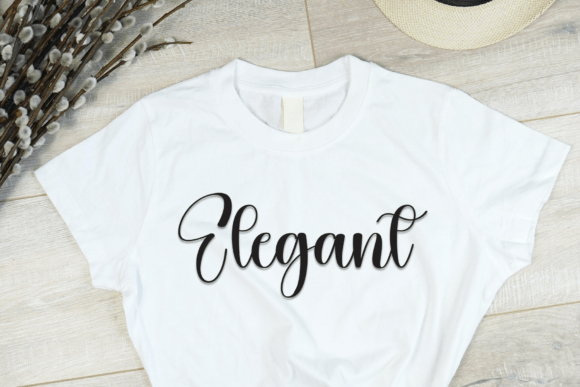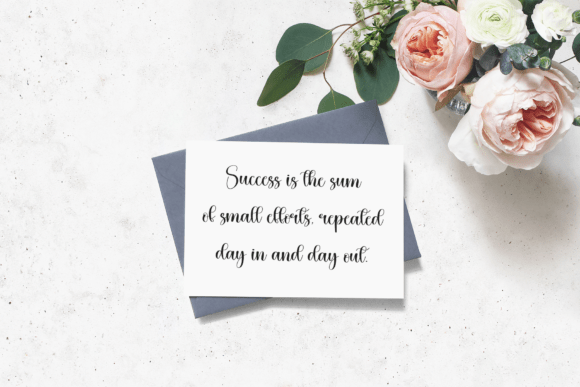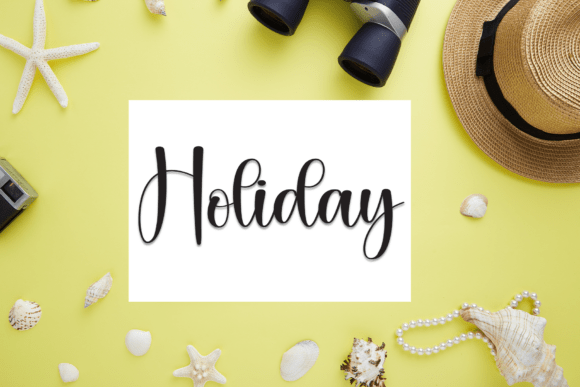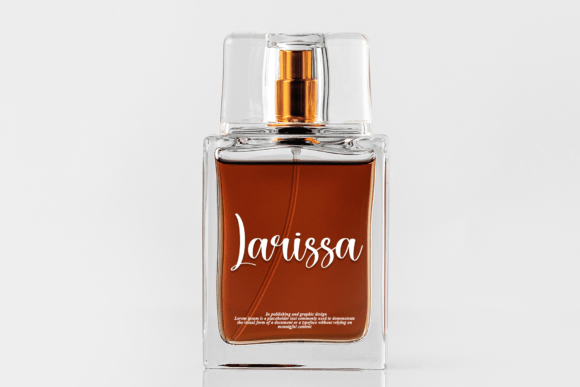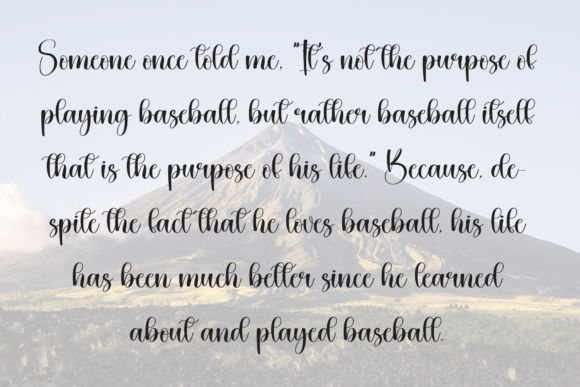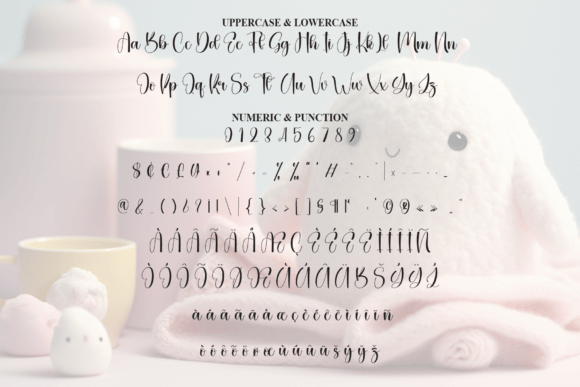
Introduction to Lilstuff Font
Have you ever been working on a creative project, pouring your heart and soul into every detail, only to feel like something is missing? That’s where the perfect font can make all the difference. For designers and artists, finding the right font can be the key to elevating their work from good to great. And that’s where the Lilstuff Font comes in – a stylish script font that exudes creativity and modern elegance.
With its flowing strokes, graceful curves, and expressive letterforms, the Lilstuff Font captures the beauty of hand-drawn calligraphy with a contemporary flair. Whether you’re designing a logo, invitation, or social media graphic, this font adds an artistic and sophisticated touch that’s sure to impress.
Key Features of Lilstuff Font
- Unique and quirky design makes it ideal for adding a touch of personality to your work
- Supports a wide range of languages, including Latin, Cyrillic, and Greek alphabets
Honest Review: Lilstuff Font
Here are some of the things that work well with the Lilstuff Font:
- Wide range of characters and glyphs, making it suitable for various languages and scripts.
- Smooth and clean lines, giving it a professional and modern look.
- Highly customizable, allowing designers to experiment with different font styles and combinations.
However, there are a few limitations to consider: ⚠️ The font may not be suitable for use in complex, multi-line text, as the lines can become a bit blurry. Additionally, some users may find the font too minimalist, which can make it difficult to read for certain audiences.
Overall, I’m impressed with the Lilstuff Font and would definitely recommend it as a design resource. It’s a great choice for designers working on creative projects who need a high-quality, versatile font that’s easy to use.
Designing with the Lilstuff Font
Alternatives to Lilstuff Font
Great Vibes Font compares to Lilstuff Font in its ability to add a creative and artistic touch to designs, but it has a more refined and polished look, making it suitable for more formal projects.
Alex Brush Font is a beautiful, handwritten font that is perfect for designers looking for a unique and personal touch. It features a high-quality design with a transparent background and is available for free download. This font is ideal for creative projects such as branding, packaging, and editorial design.
Alex Brush Font compares to Lilstuff Font in its creative and artistic feel, but it has a more delicate and refined look, making it suitable for projects that require a touch of elegance.
Pacifico Font is a beautiful, modern script font that is perfect for designers looking for a high-quality design resource. It features a transparent background and is available for free download. This font is ideal for creative projects such as branding, advertising, and editorial design.